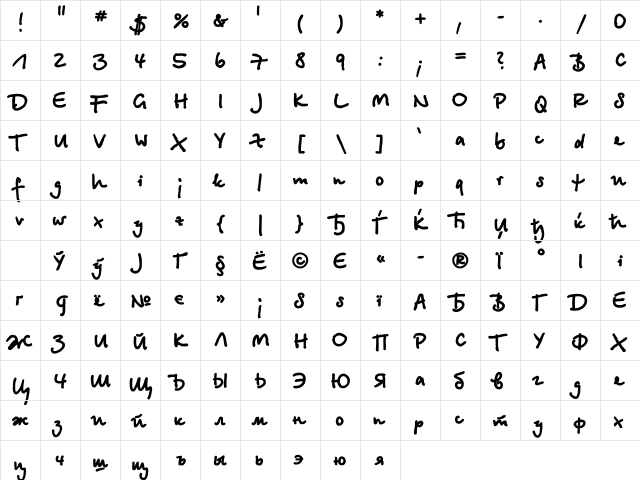
BetinaScriptXCTT Regular Font Preview
BetinaScriptXCTT Regular
BetinaScriptXCTT Regular Font Details
Design Context for BetinaScriptXCTT Typeface
BetinaScriptXCTT flows with the natural rhythm of handwritten lettering, making it ideal for designs that call for warmth and personal expression.